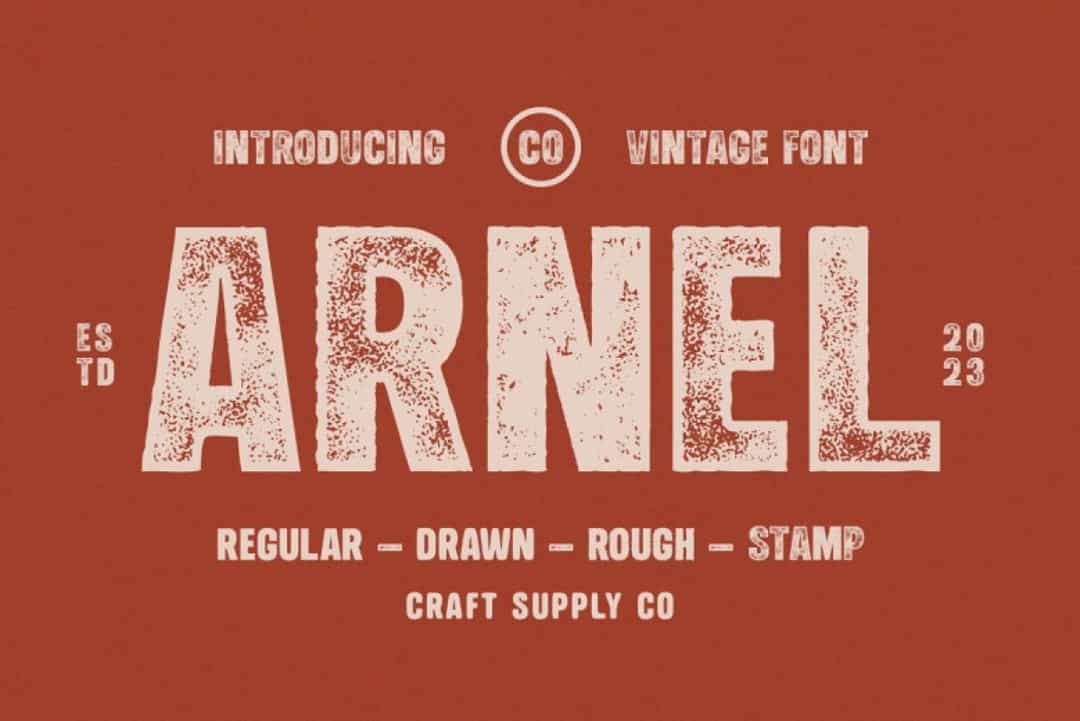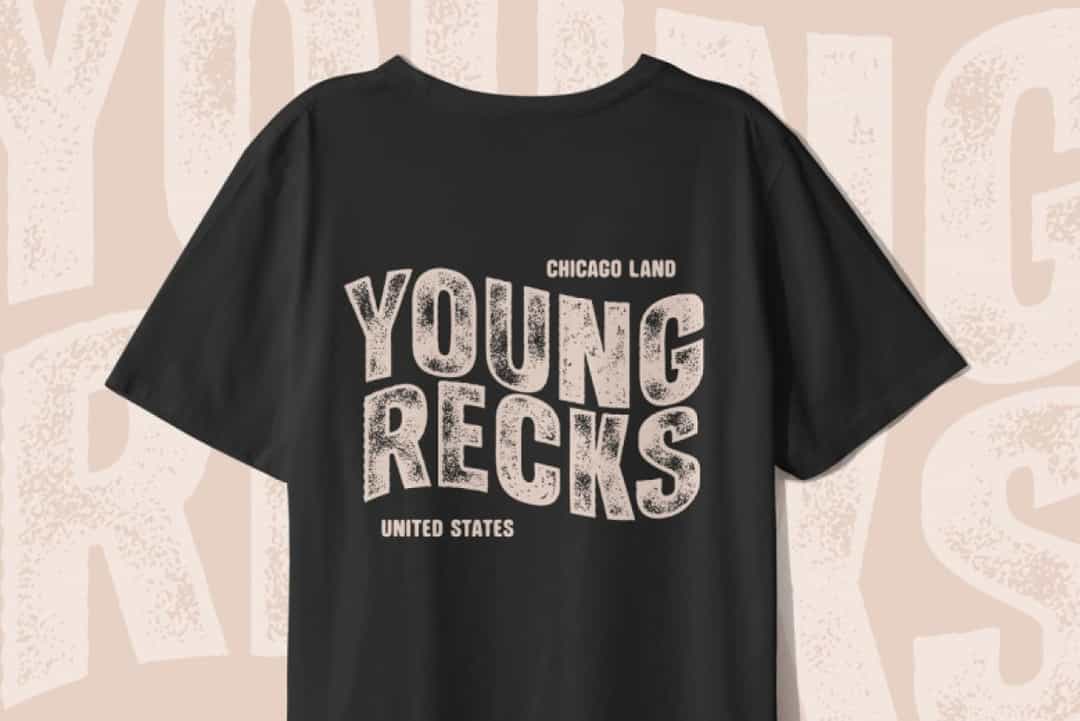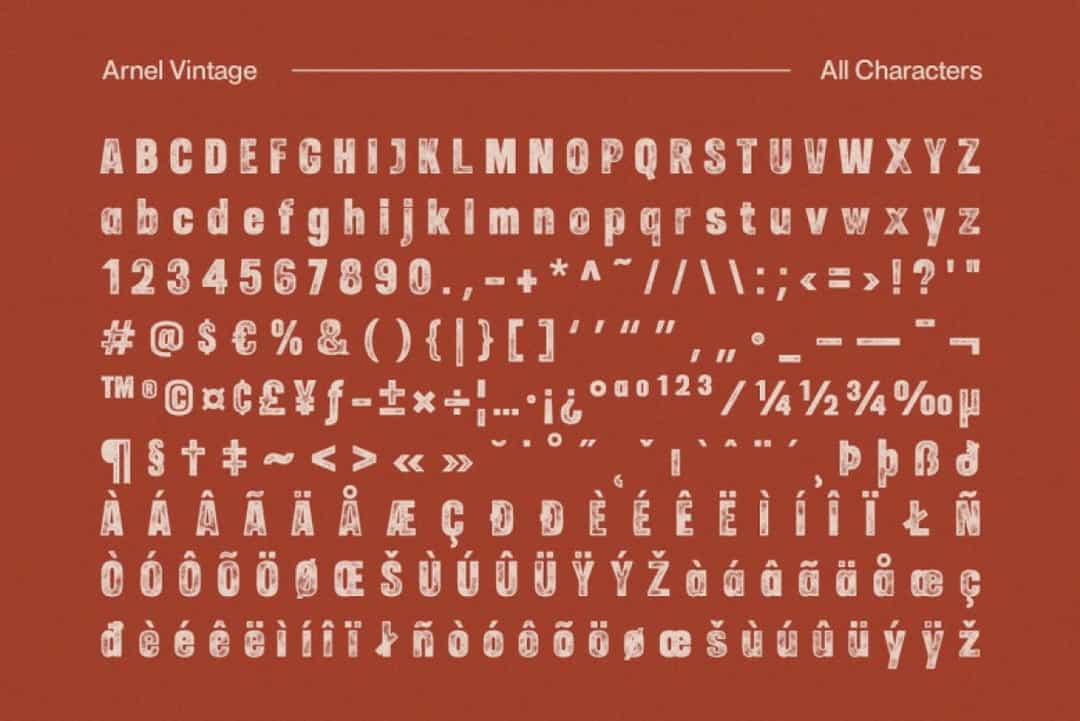
Arnel Vintage Font is an impressive show typeface which perfectly recreates the rustic appeal of vintage stamps with its natural, hand-drawn appearance. Specifically tailored to meet your display needs, this typeface brings back memories of earlier times while remaining authentic. Using Arnel it is simple to transport viewers back in time through nostalgia while providing authentic experiences for each viewer.